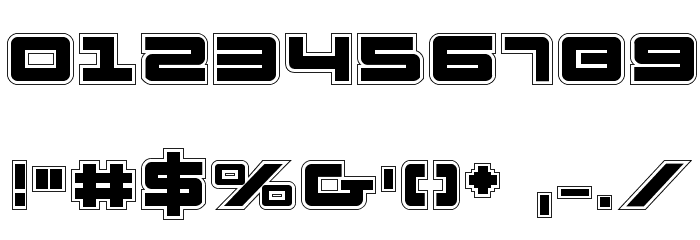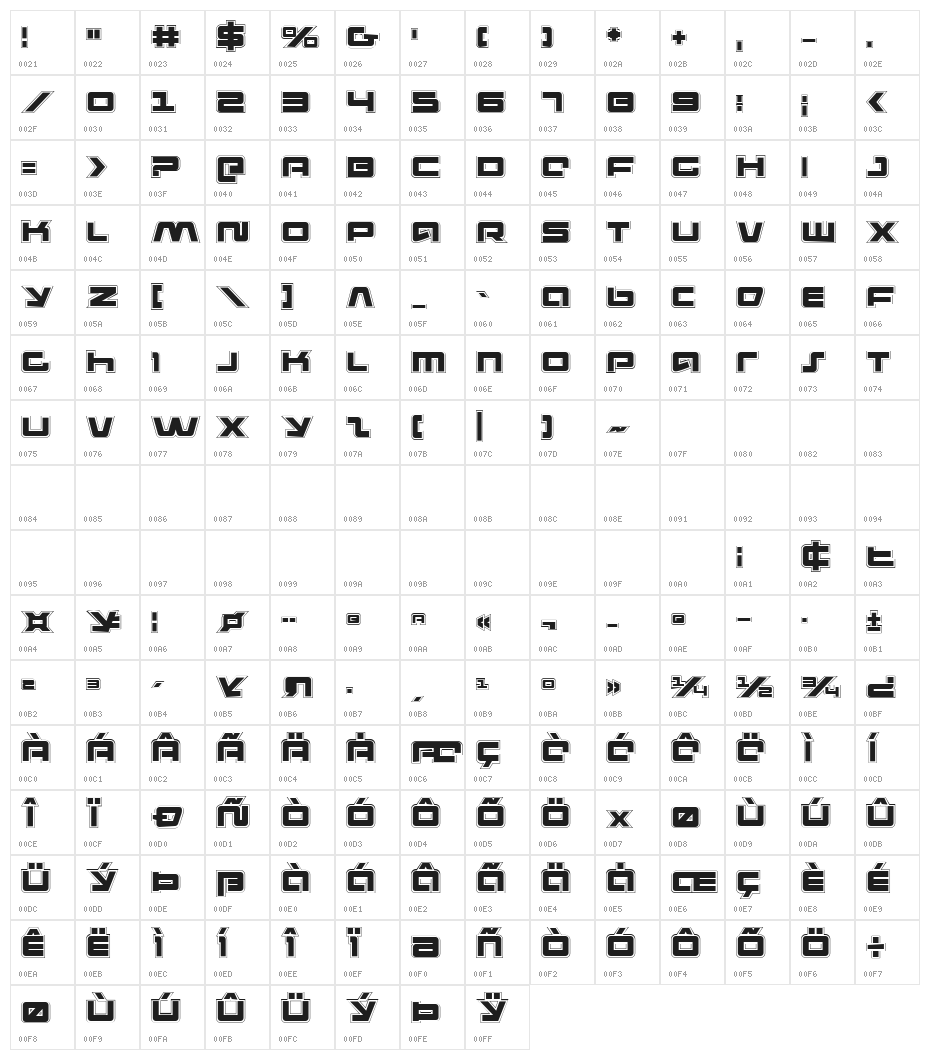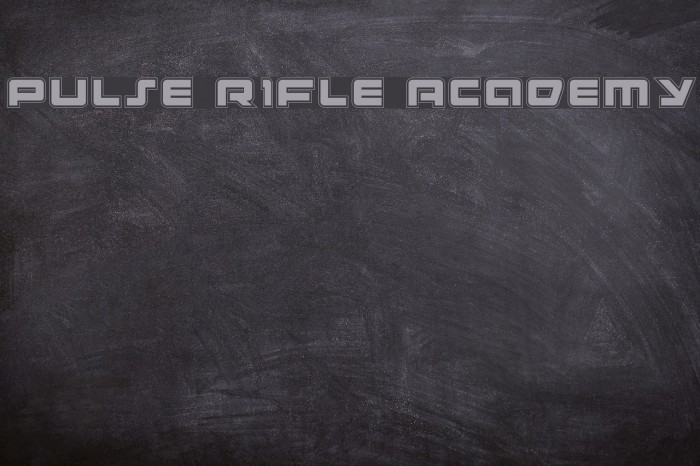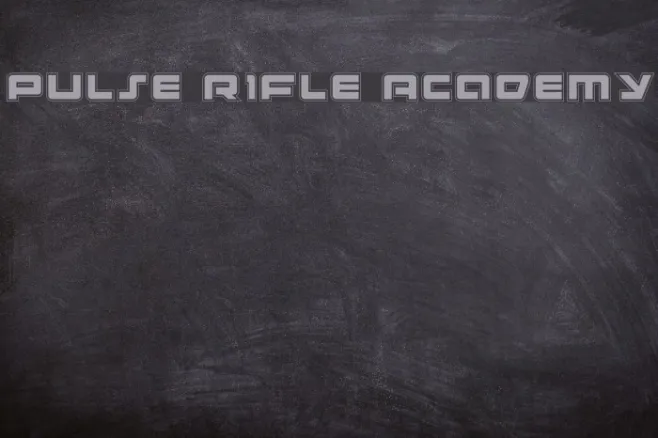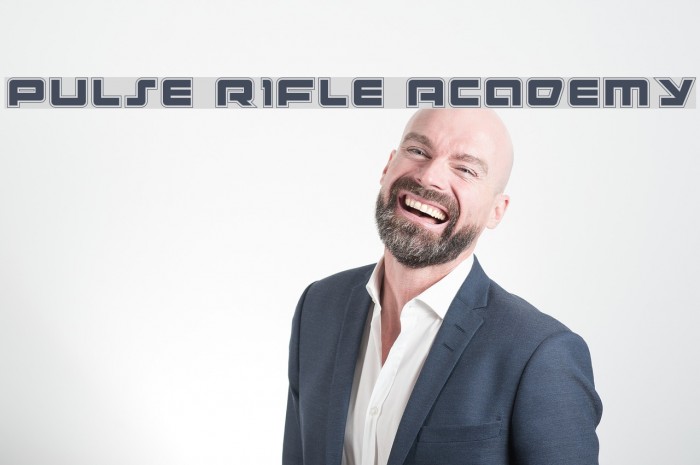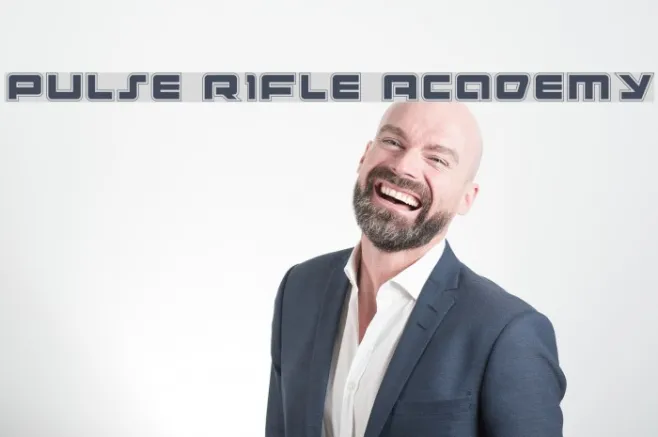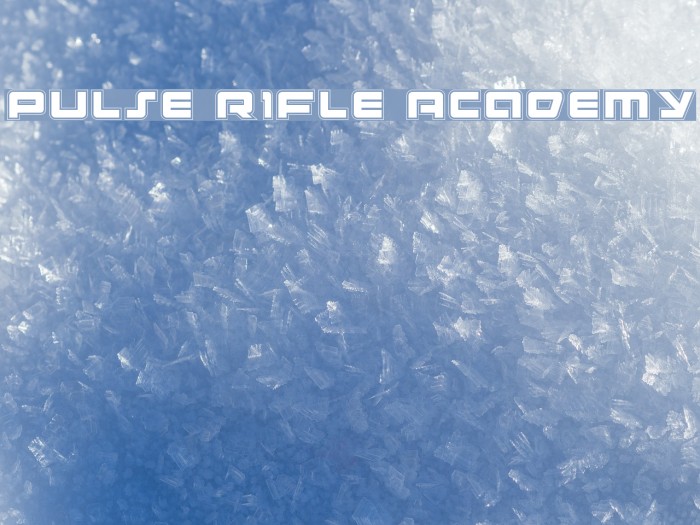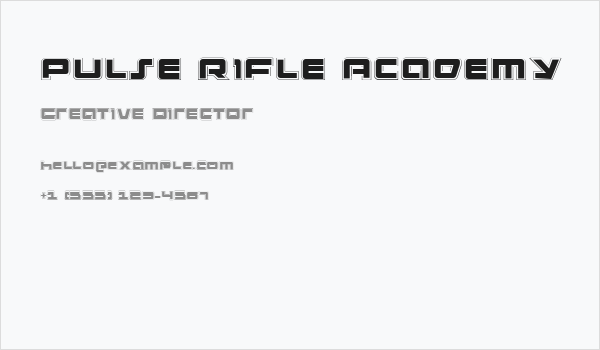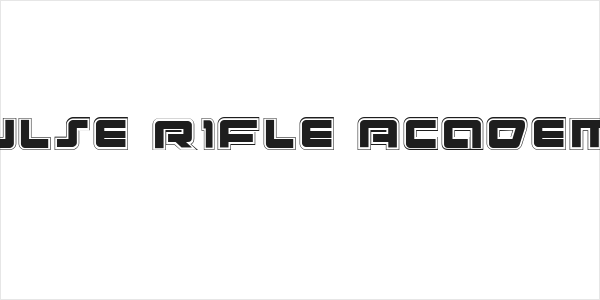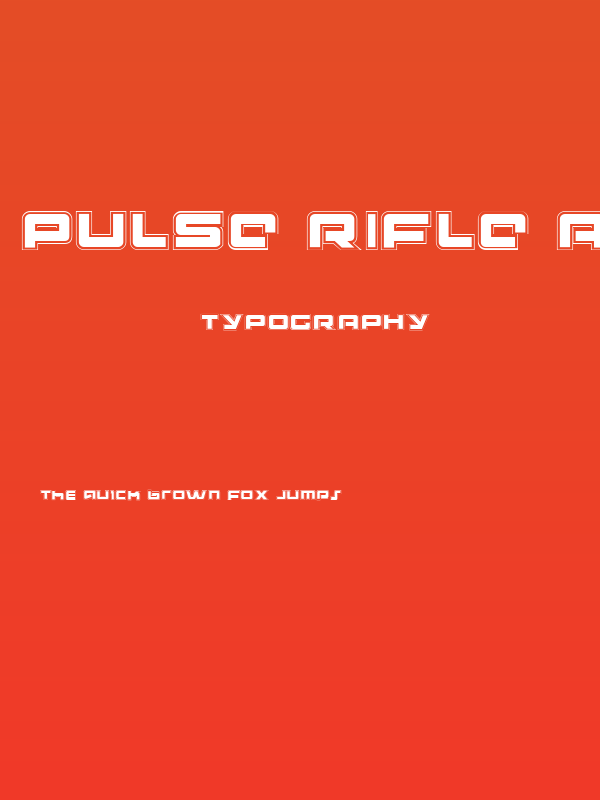
Pulse Rifle Academy Font
Pulse Rifle Academy Description
This font features a bold, futuristic design with a strong geometric structure. The characters are outlined with a thick border, giving them a three-dimensional appearance. The uppercase and lowercase letters share a consistent style, with angular and sharp edges that convey a sense of modernity and technology. The numbers and special characters maintain this aesthetic, ensuring uniformity across all glyphs. The font's distinct style makes it ideal for projects that require a modern and tech-savvy look.
| Proposed Projects | Ideal for sci-fi themed designs, video game titles, tech branding, and futuristic posters. |